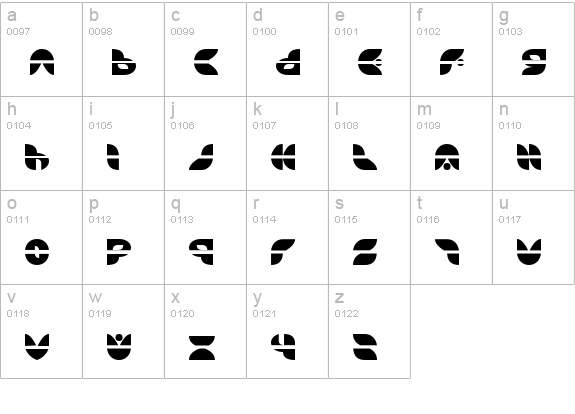
Puff Angel Laser Font Details
Puff Angel Laser font is a whimsical and playful typeface that exudes a sense of magic and fantasy. Its intricate laser-cut design gives it a unique and futuristic look that is sure to captivate and enchant your audience. With its airy and light-hearted appearance, Puff Angel Laser font is perfect for adding a touch of whimsy to any project. And the best part? Puff Angel Laser font is completely free for personal and commercial use! You can easily download this delightful font from FontsMarket.com and start incorporating its charm into your designs today. Let Puff Angel Laser font be the magical touch that elevates your creations to a whole new level of creativity and imagination.